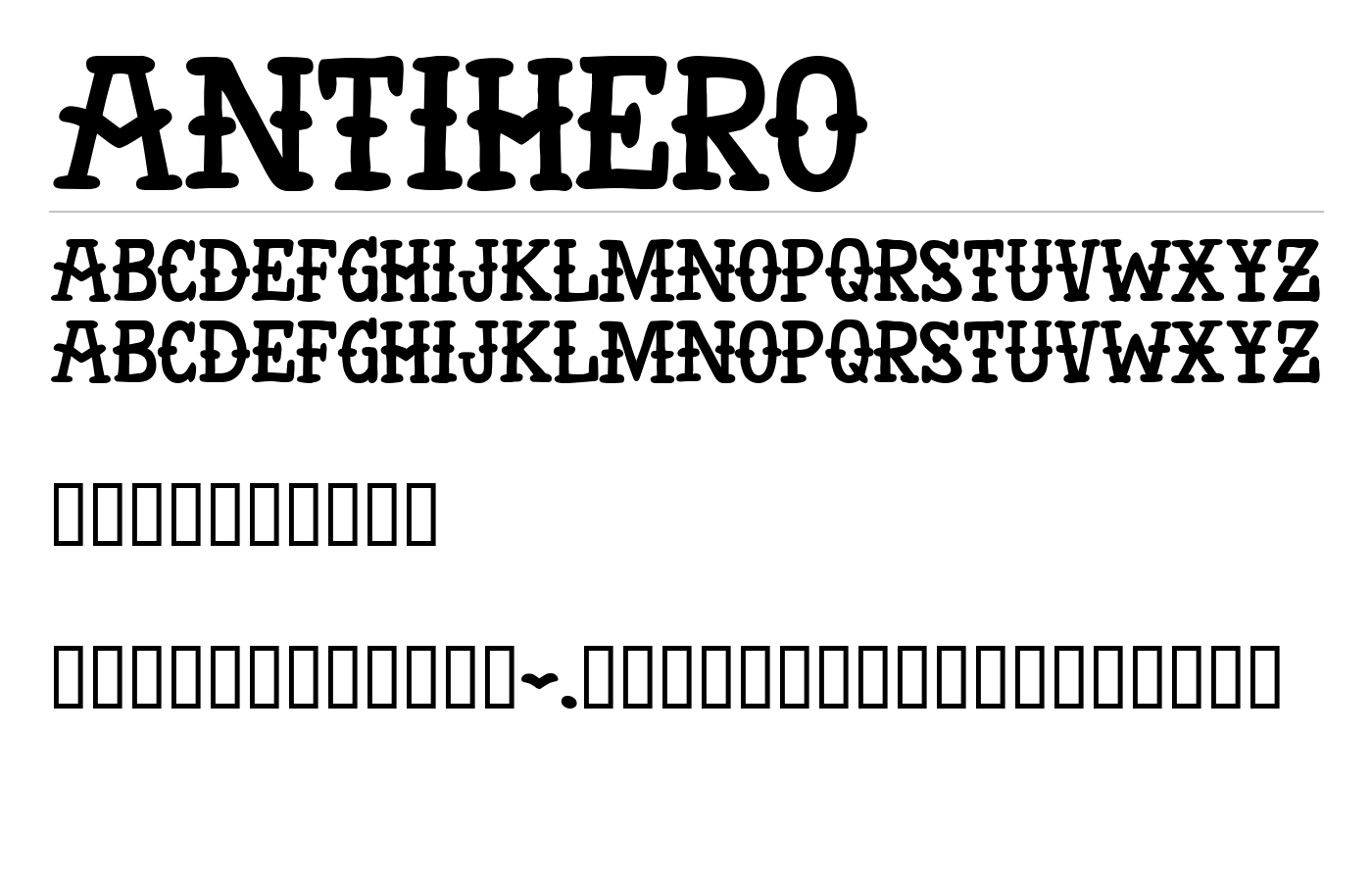
AntiHero is a bold slab serif font with a playful, quirky character that stands out through its chunky, bracketed serifs and irregular, hand-drawn feel. Its high x-height and tight spacing give it strong readability while the unique shapes of letters add a vintage yet whimsical vibe, making it ideal for branding, headlines, or posters that seek a friendly, informal but confident look. This font works well for creative, casual, or retro projects that want to make an engaging and memorable statement.
AntiHero Font